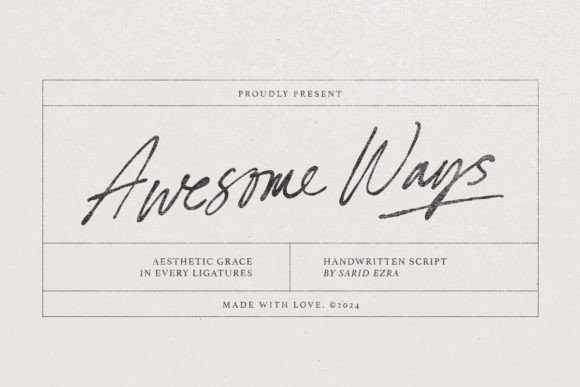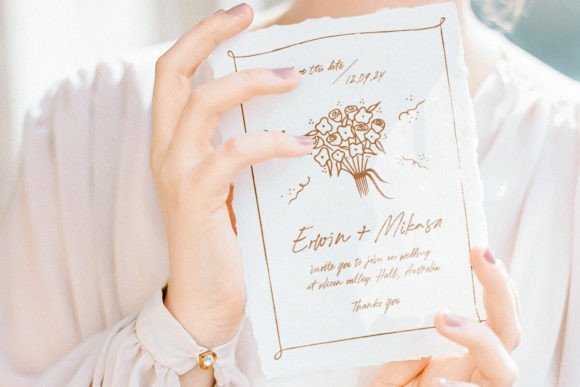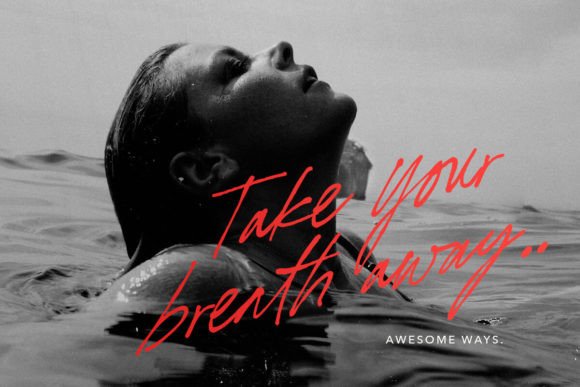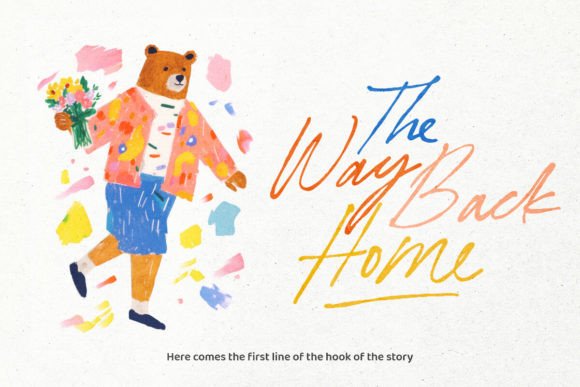
Awesome Ways Font
About the Awesome Ways Font
We are excited to introduce Awesome Ways Font, a must-have typeface for any serious designer. Awesome Ways is a handwritten script with a bunch of ligatures that will make your project look more natural and made by hand. You can use this font for any purpose such as labels, logos, handwritten quotes, wedding invitations, and more.
Awesome Ways excels in applications requiring a handcrafted, personal touch. It’s ideal for short headlines, logos, and branding elements where its expressive ligatures add visual interest. Consider it for wedding invitations, short quotes, or packaging designs that benefit from a warm, intimate feel. However, avoid using it for body text or lengthy paragraphs; its informal nature and varying stroke weights make it unsuitable for extended readability.
Its playful yet elegant personality pairs well with clean sans-serif fonts like Montserrat or Open Sans for a balanced contrast. For a more sophisticated look, consider pairing it with a classic serif like Garamond or a geometric sans-serif like Futura. Avoid pairing it with other script fonts, which might create visual clutter.
The overall mood is friendly and approachable, making it a great choice for brands aiming for a personable and charming aesthetic. Its hand-drawn quality lends itself to projects emphasizing authenticity and craftsmanship.
Awesome Ways Font Usage Examples
Awesome Ways Font Example